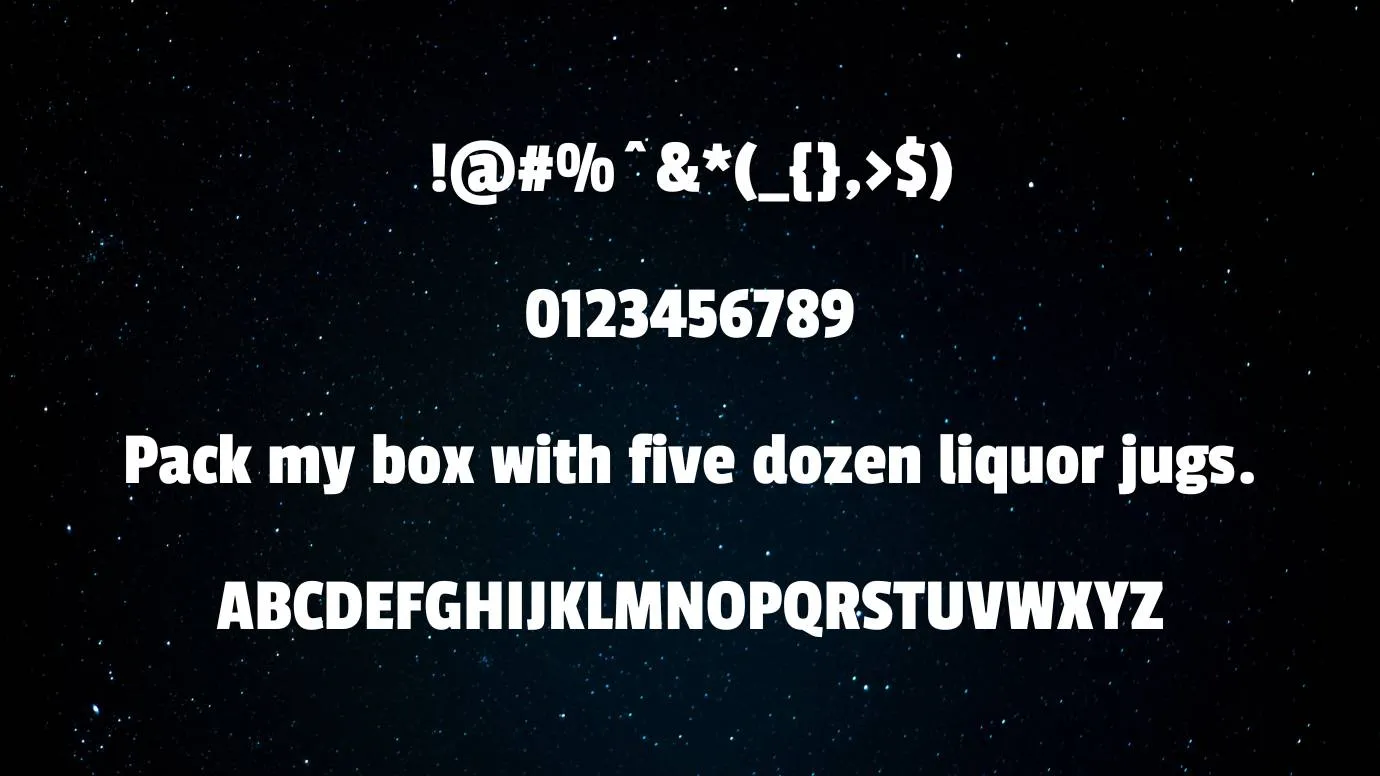
We are going to present one of the stylish typefaces Passion Font which belongs to the sans-serif font family. It has a unique texture and wonderful design that can be used in different projects. This is a gorgeous typeface that has a high-quality texture that comes with bold texture and cutting edges. It has been used in different kinds of international projects due to its beautiful design.
This cozy font was designed by one of the famous font designers Manuel Ramos and published by the famous foundry Frontstage. He designed many other famous fonts with unique styles. It comes in capital letters, small letters, glyphs, symbols, punctuations, numbers, and digits.
If you want to more design to your projects then you can pair it with other fonts like helvetica neue font for unique combinations. It will give you more designs for your projects. It contains 65 amazing glyphs and a complete set of characters with 1024 units/ em.
Here is a view of this amazing design Passion Font that comes in a sans-serif font family. It has a unique texture and elegant design that can be used in different kinds of projects.
If we talk about the usage of this typeface then you have to know that it can be used in many noticeable places. You can design your websites and make standard designs. It can be used in different display projects and printing projects. This font is also paired with the avenir font.
You can use this typeface in different logos, posters, magazines, books, banners, text designing, headings, and layouts. You can make creative thumbnails with this typeface and design your YouTube thumbnails.
NamePassion Font
Designer Manuel Ramos
What is the Passion Font?
It is one of the modern typography that belongs to the sans-serif font family. It has complete set of characters and one regular style.
Who designed the Passion Font?
This cozy font was designed by one of the famous font designers Manuel Ramos and published by the famous foundry Frontstage.
Is there any close font to Passion Font?
Yes, some fonts can be used as an alternative that comes with the same design and style as AR Bonnie Font.